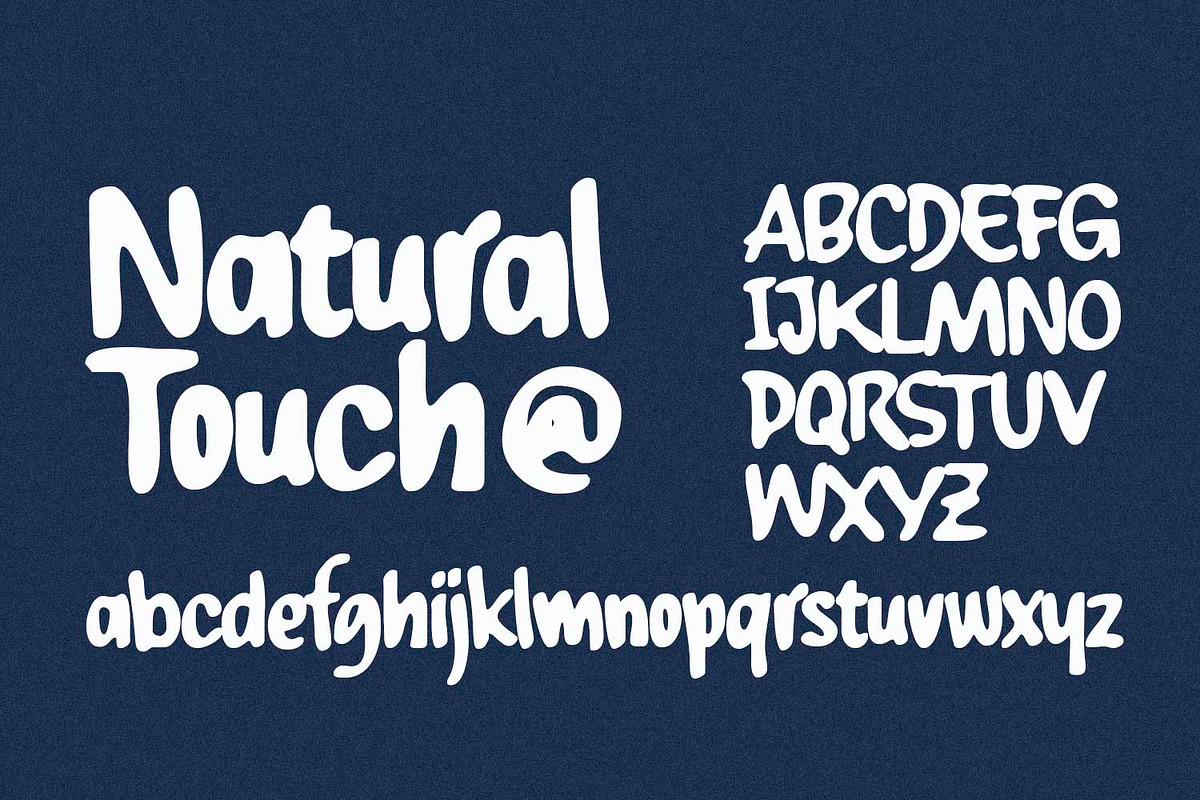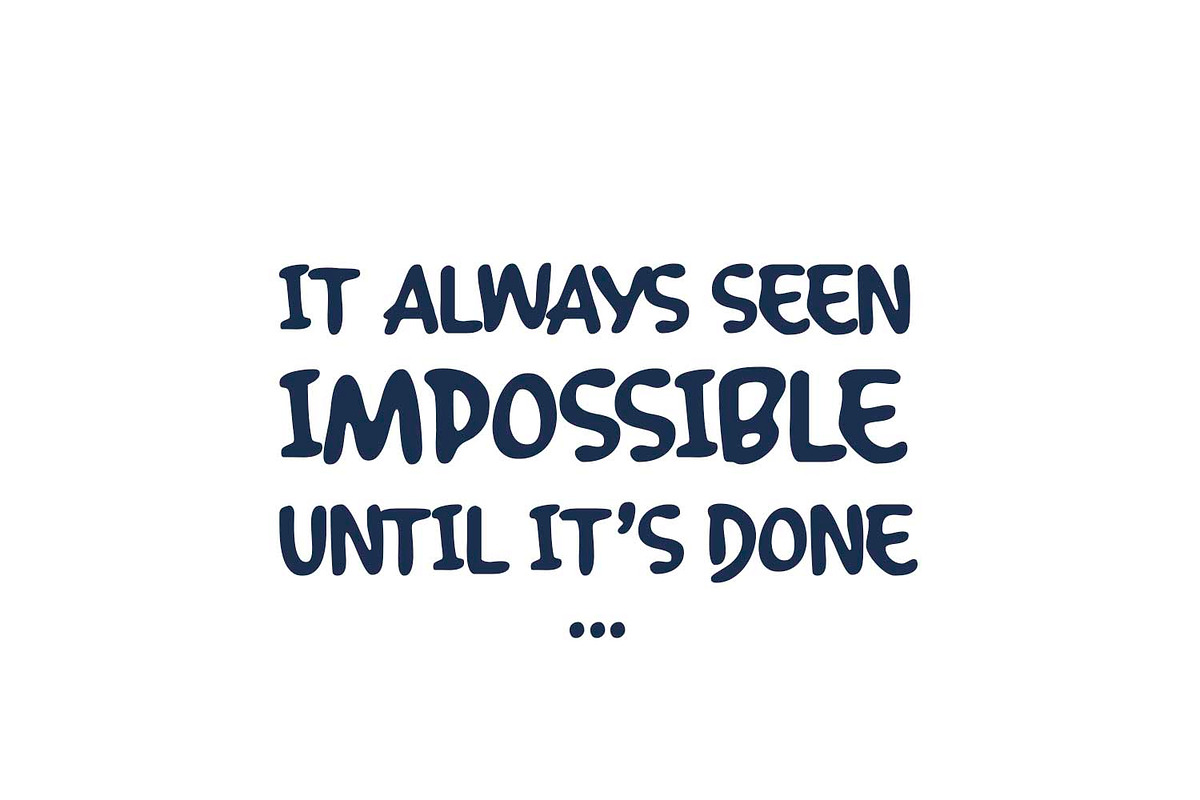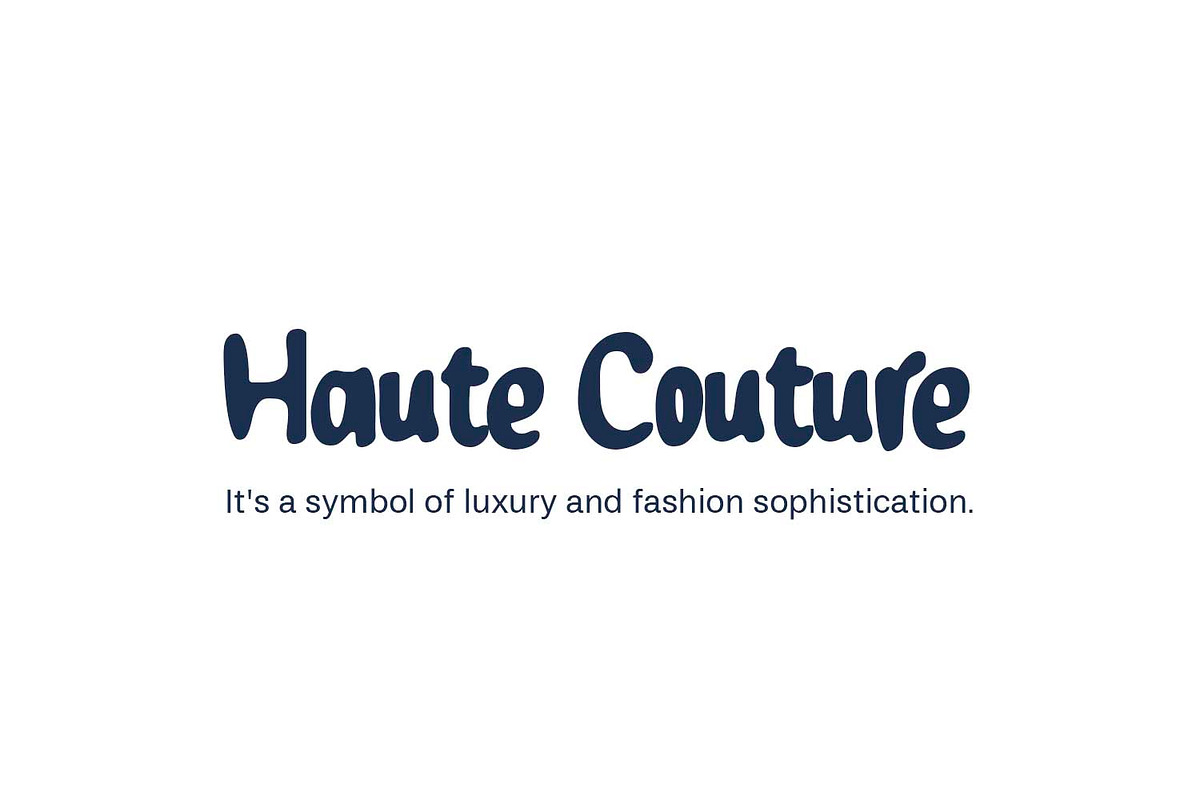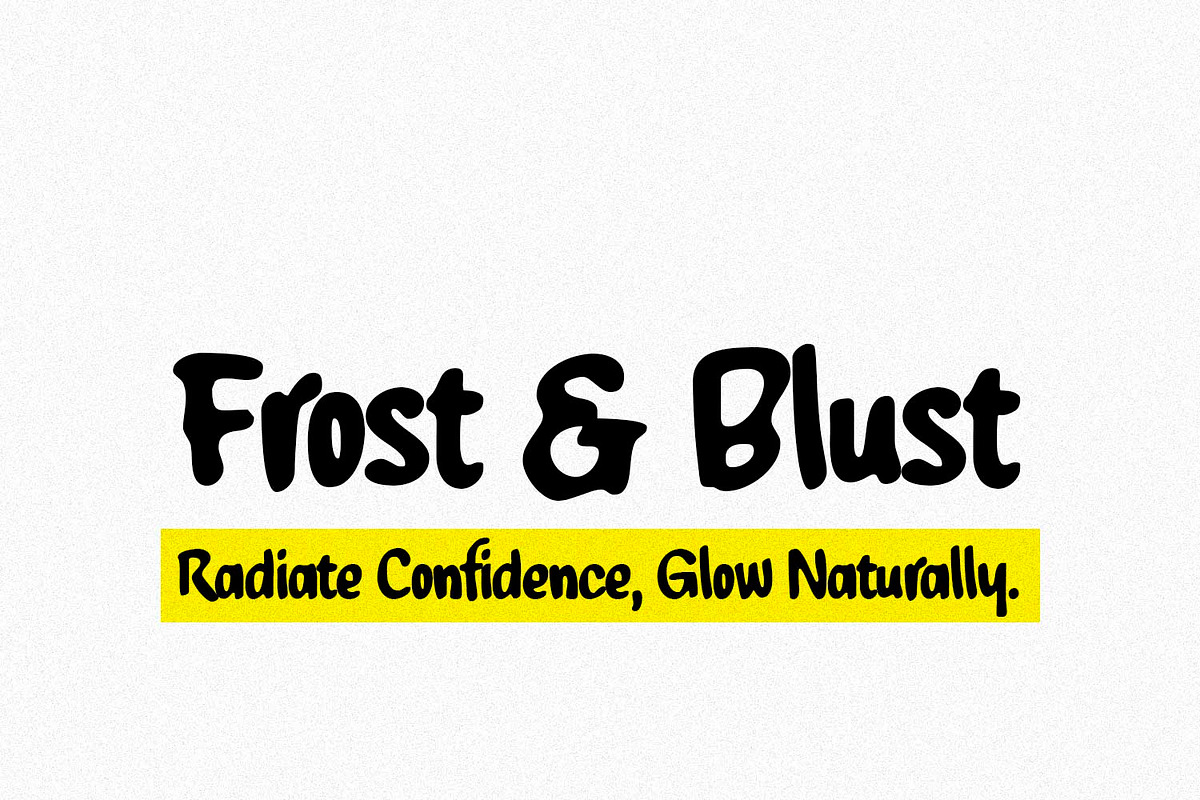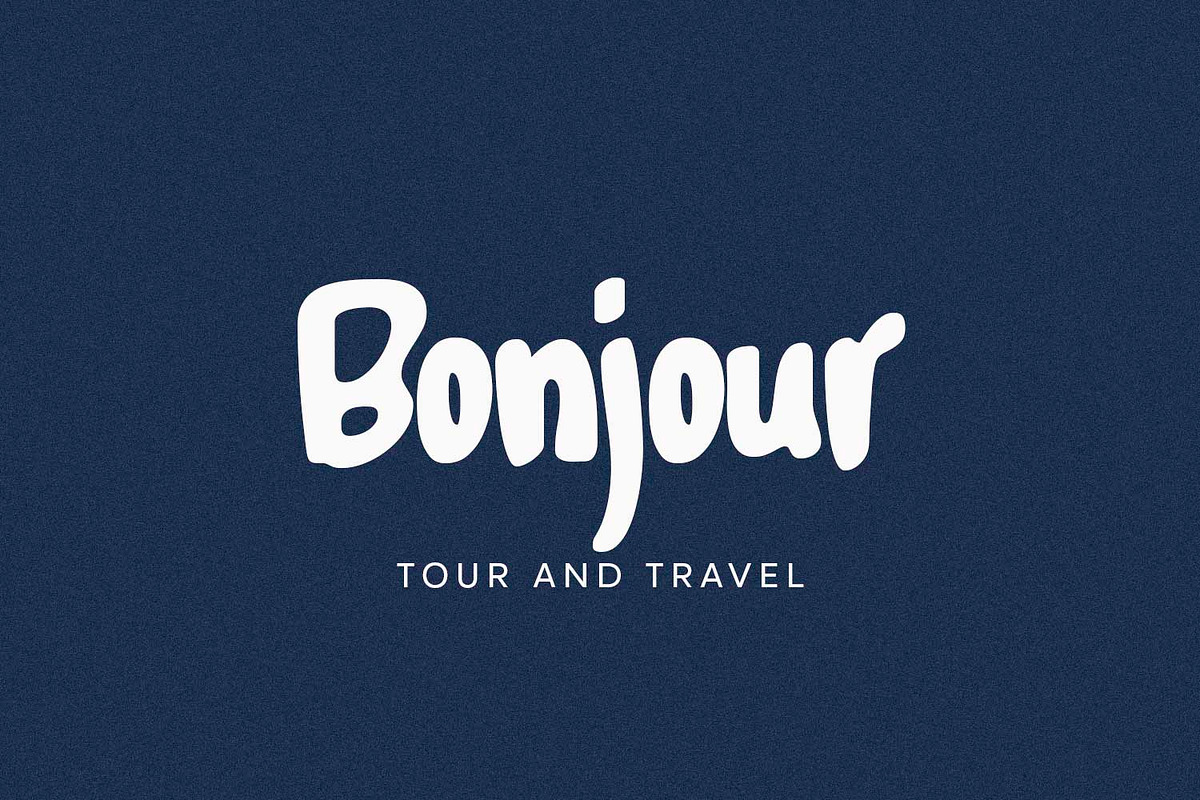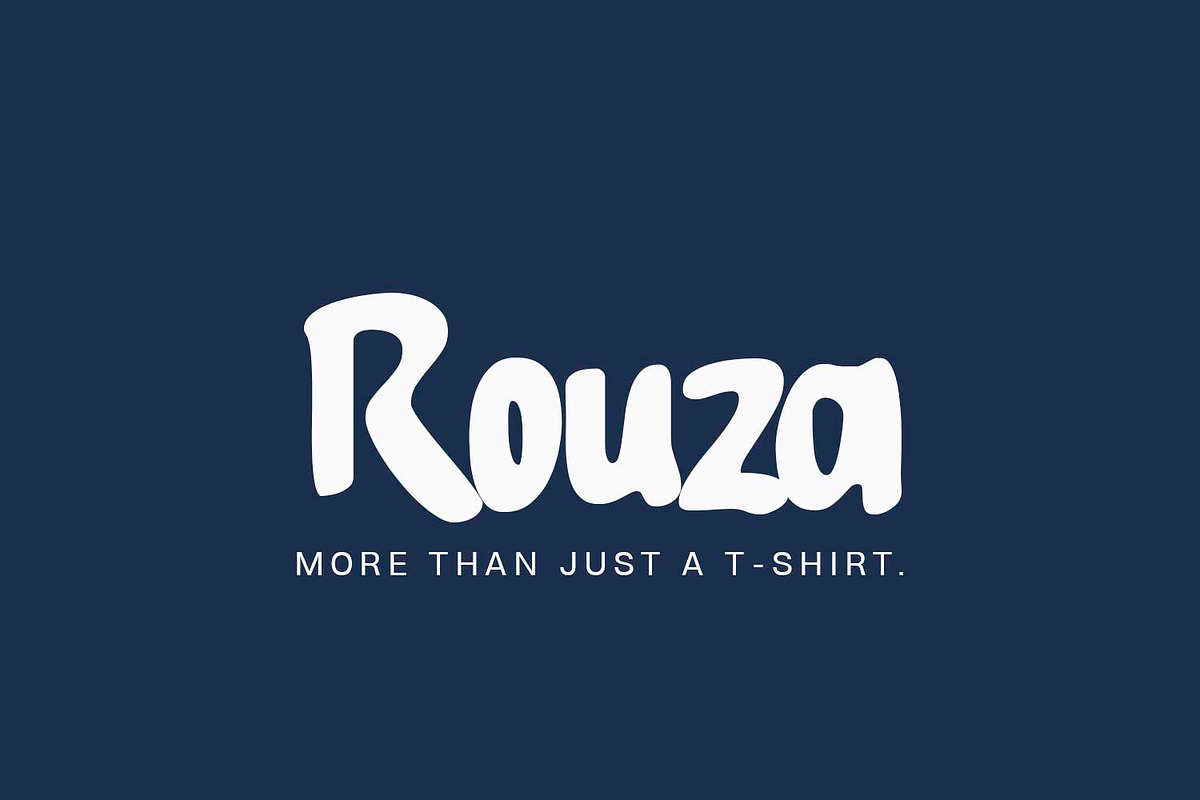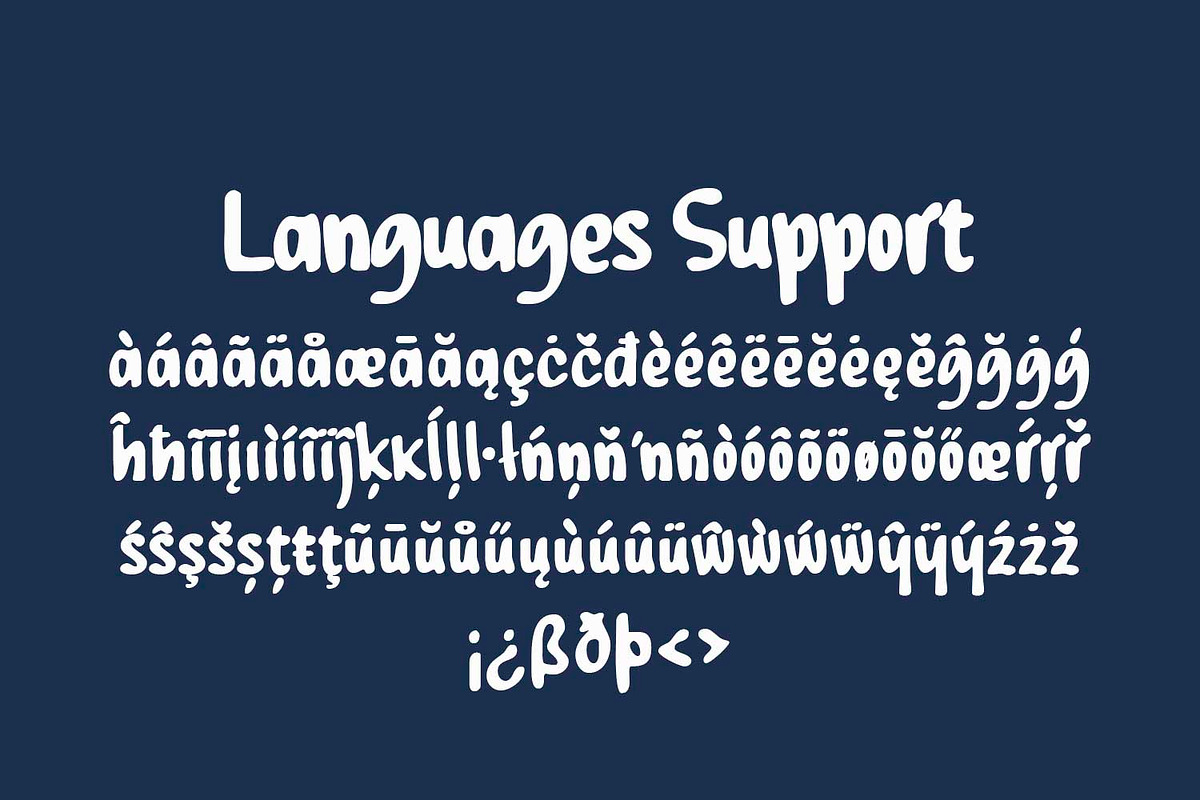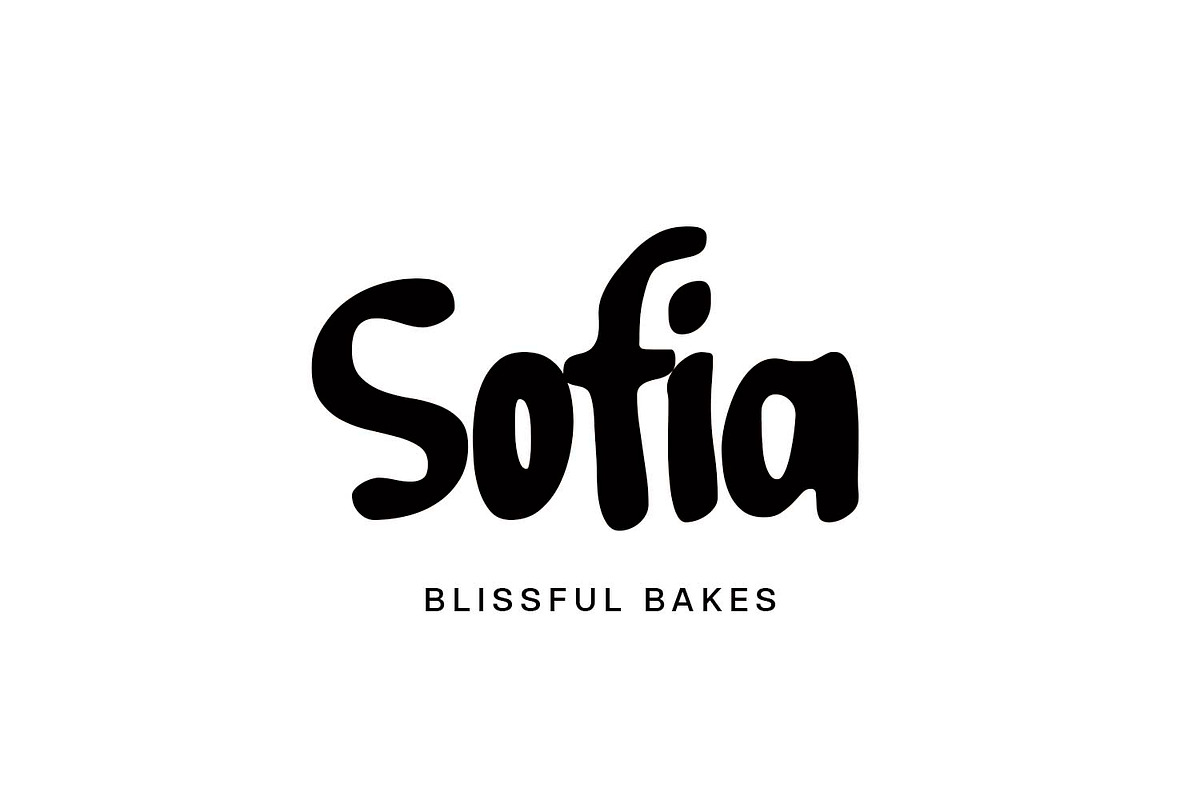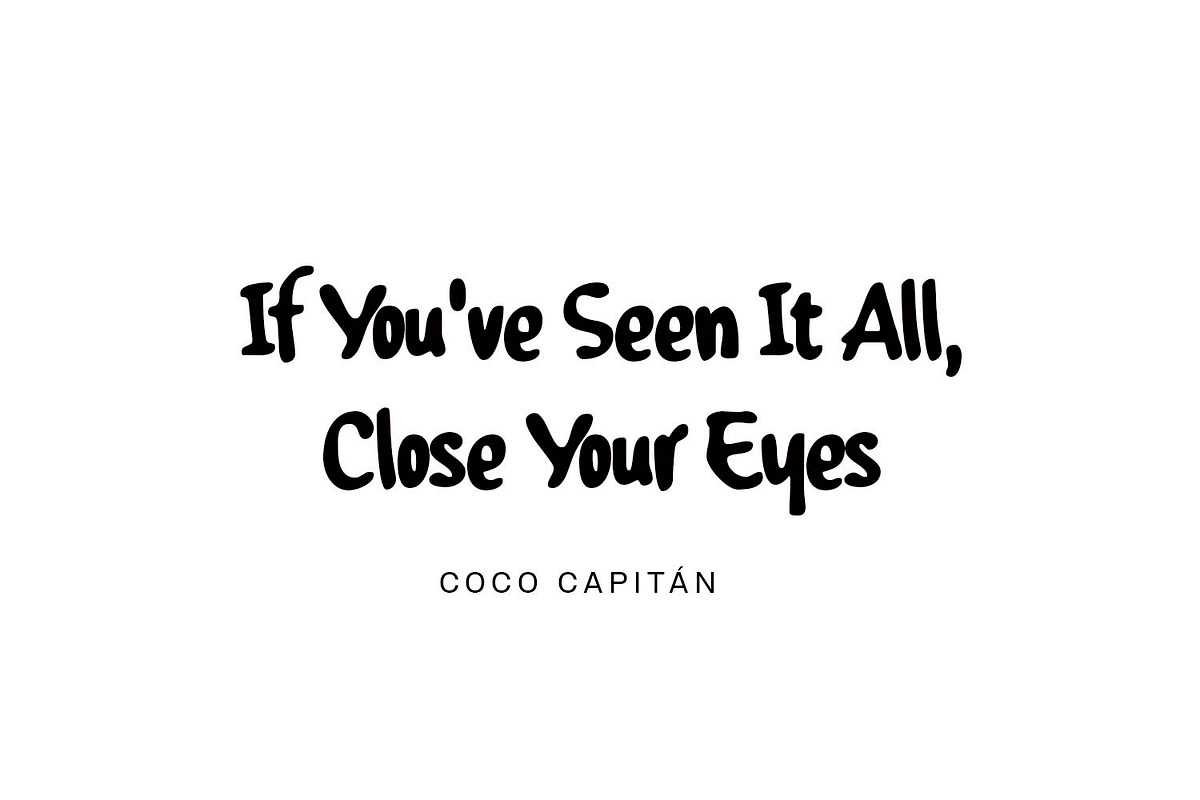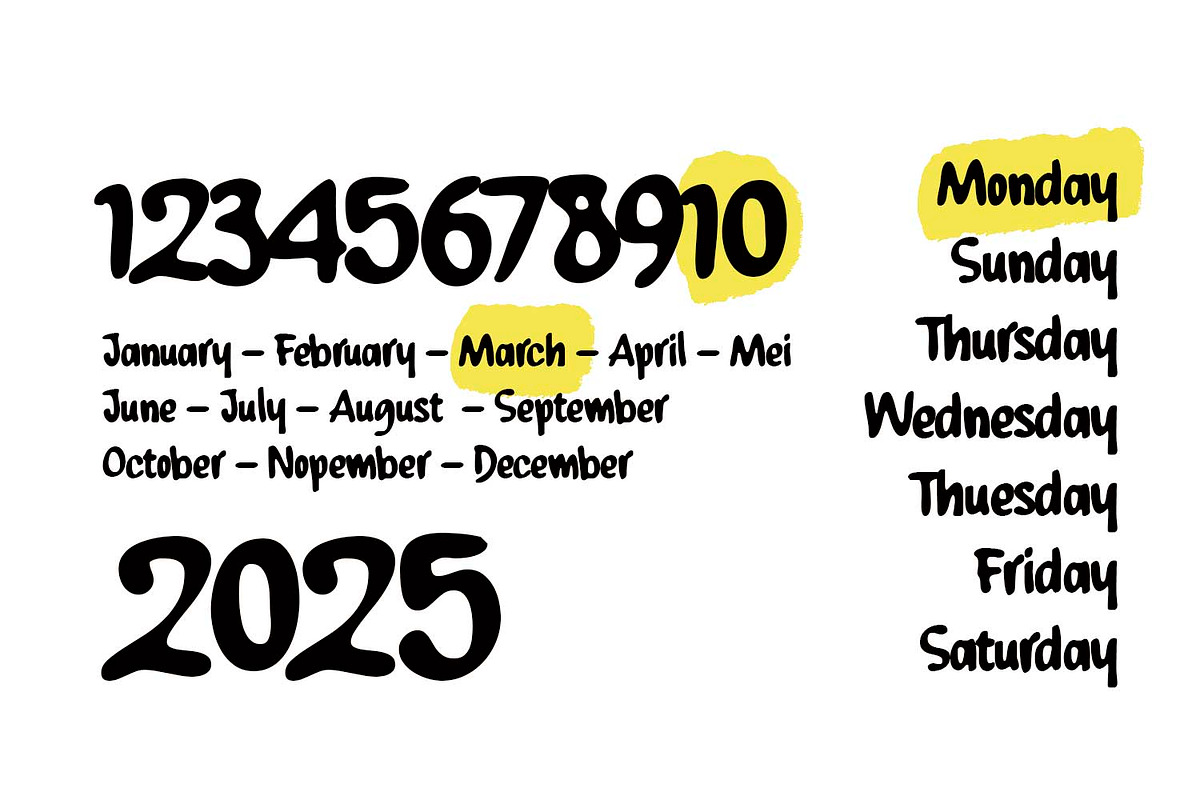
Chubo
The "Cubo" typeface presents a natural handwritten style with an upright and steady structure. Each letter maintains a balanced form with smooth curves, creating a friendly and approachable look. The consistent stroke weight enhances readability while preserving the organic feel of handwriting.
The font achieves a stable and neutral appearance, making it suitable for both casual and professional applications. The letter spacing is well-proportioned, ensuring clarity without losing its natural flow. Some refinements in character consistency could further enhance uniformity, making the typeface more cohesive.
Overall, "Chubo" embodies a natural yet structured handwritten aesthetic. With slight refinements in stroke consistency and spacing, it can become even more versatile for various design uses.